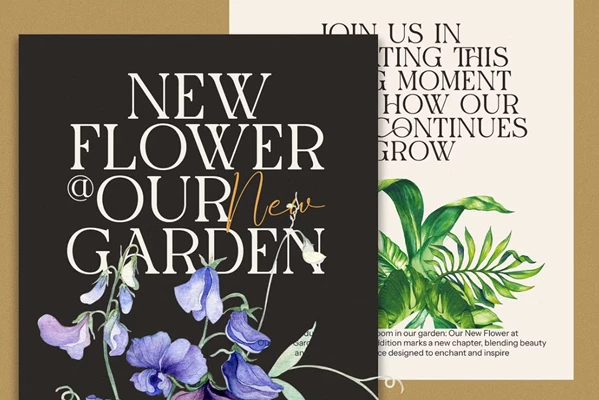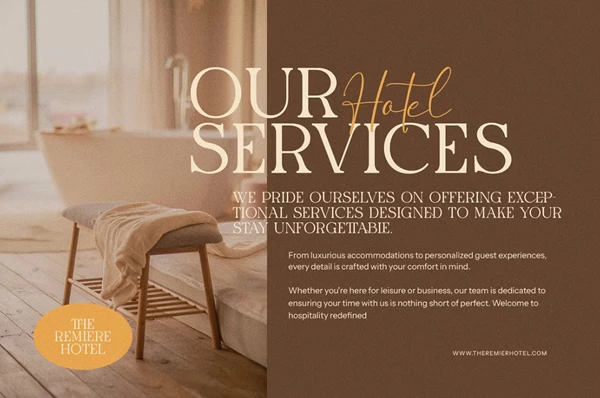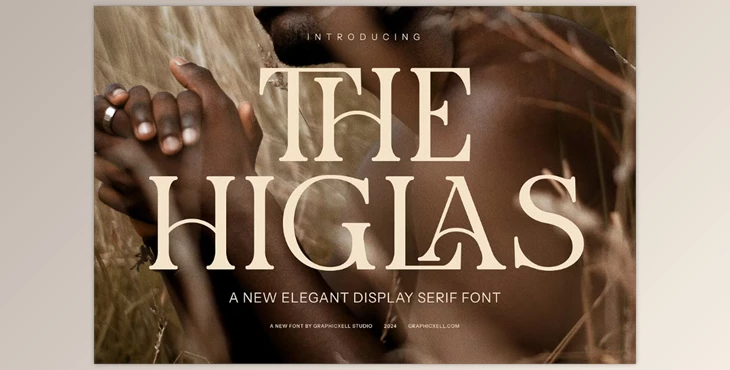
The Higlas Elegant Serif Font:
Elegance and modernity have never been combined so expertly as in The Higlas Elegant Serif Font, a typeface of exceptional beauty and elegance. With a sharp eye for detail, he created serifs, cast ligatures, and several alternate characters, which every designer wishes to have in their toolbox. It caters to a designer's need to worship classic fonts while craving modern ones. The font perfectly serves every project that requires an expensive and polished look without sacrificing clarity.
The Highlands is distinguished for its outstanding features, very carefully crafted artistic ligatures, and alternates that allow experimentation within one font. These features make it perfect for several creative areas, like branding and editorial design. Companies looking to build an unforgettable brand image will capture it with The Higlas because it is what you need for exquisite logos, brand books, and marketing collateral.
Its clean and beautiful appearance has had a notable impact on fashion, cosmetics, beauty, food, and lifestyle businesses. The Higlas adds elegance and modernization to an upscale boutique or restaurant. In editorial and web design, it beautifies and gives an elegant touch to magazines, brochures, websites, and blogs while enhancing their timeless elegance. With greater vibrancy and clarity than any other decorative font, The Higlas remains one of the most legible fonts, which makes it suitable for longer texts due to its fluidity.
In addition to these domains, the Higlas is equally effective in advertising and product design. Where the font The Higlas excels in advertising and product design, its balanced letterforms are appropriate for both print and digital media. From billboards to social platforms, it stylishly and elegantly conveys information regardless of the medium. Overall, The Higlas Elegant Serif Font is not just a typeface but a statement of style, creativity, and creativity to effortlessly elevate designs, making a designer's mark in diverse fields.